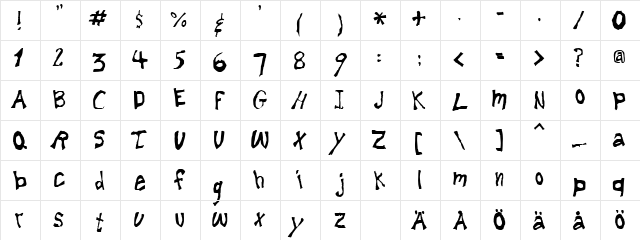
Lemonheads Normal
Design Context for Lemonheads Typeface
Lemonheads is a composed and adaptable typeface that performs quietly and consistently across a wide range of design contexts.